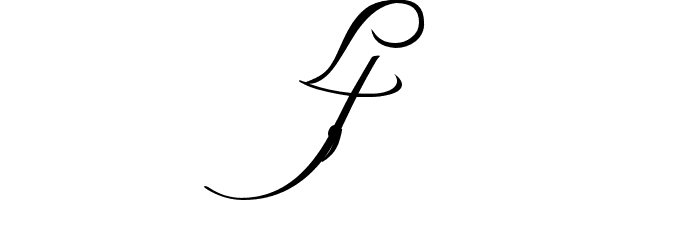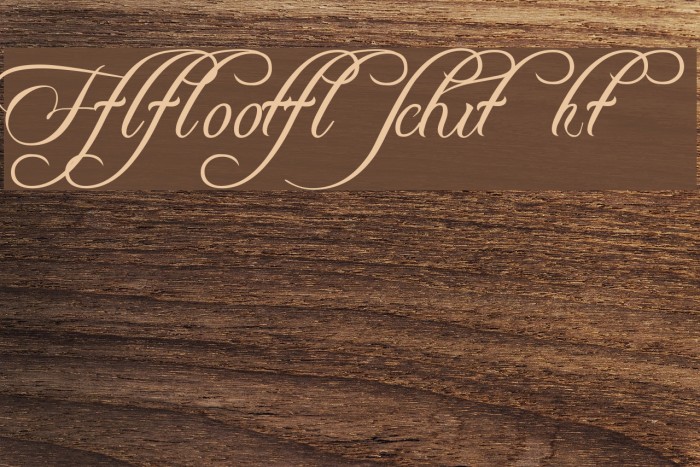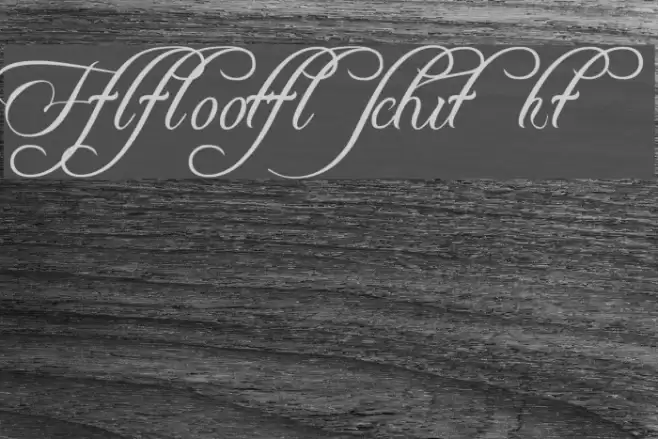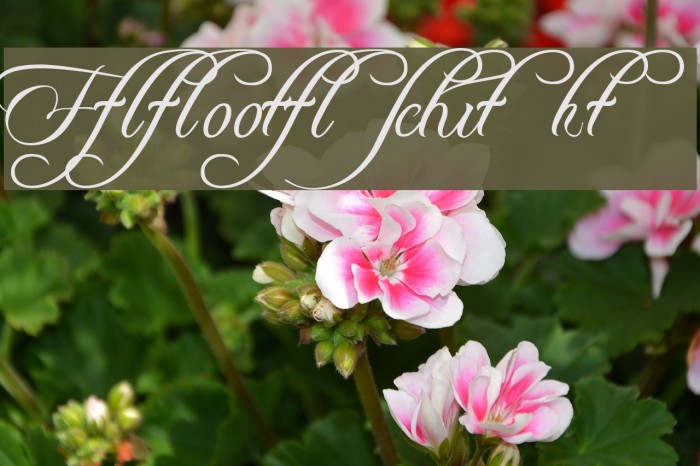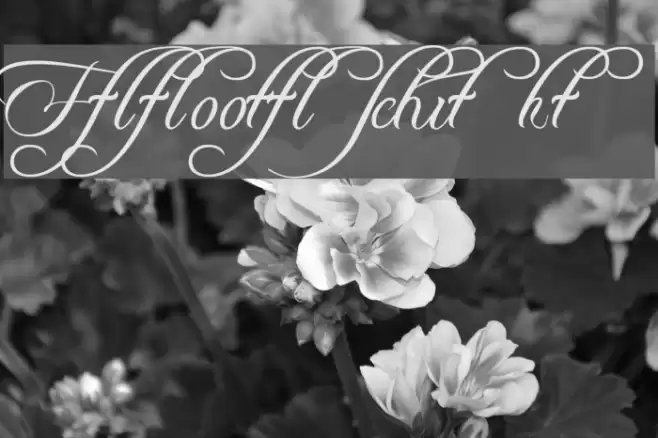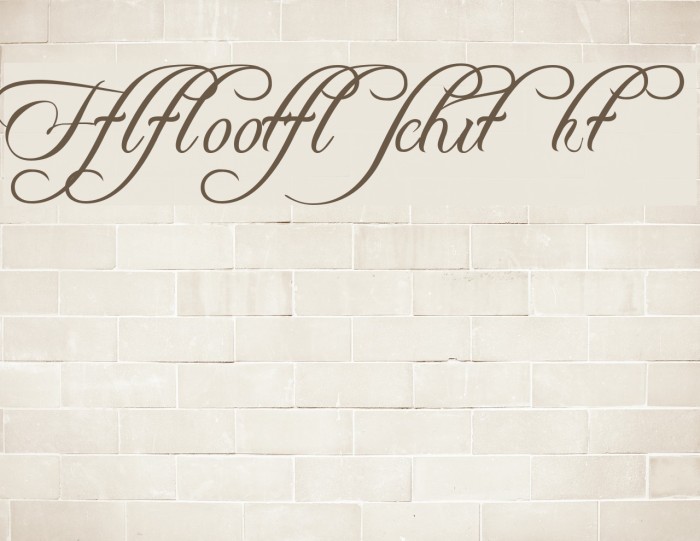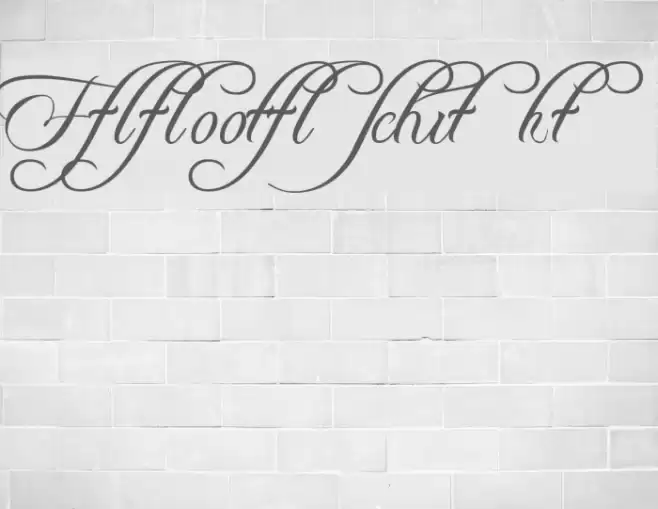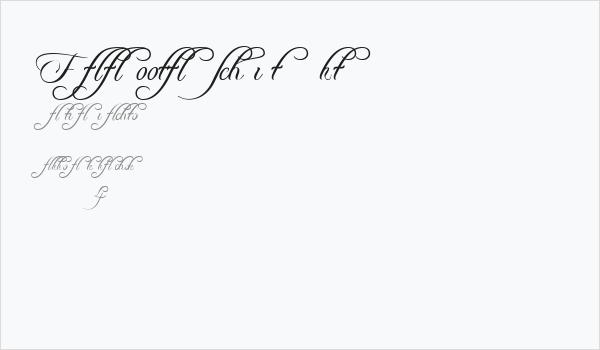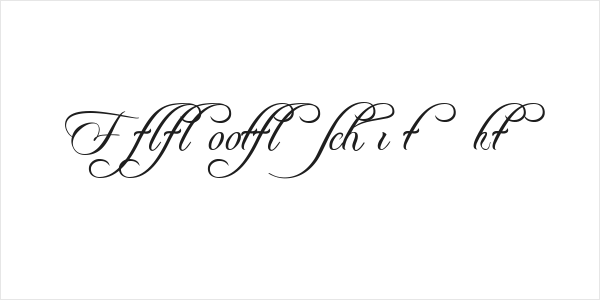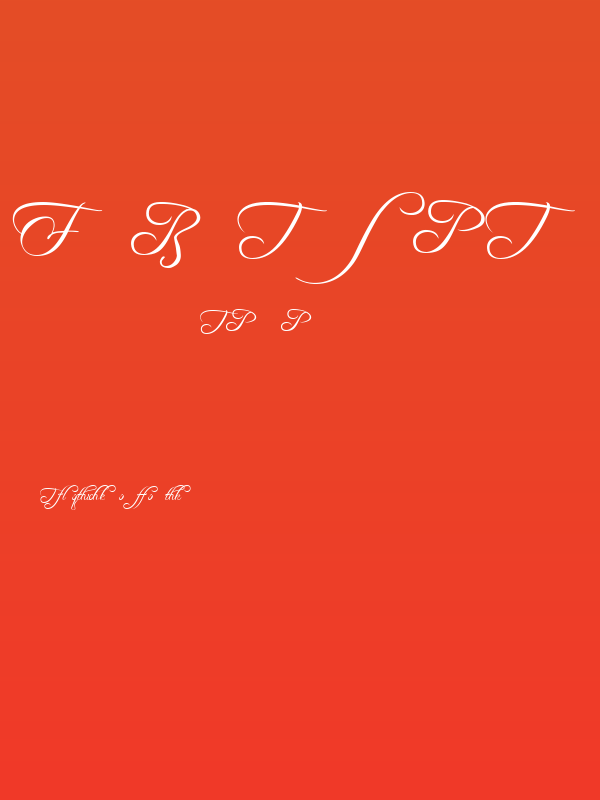
Freebooter Script - Alts Font
Freebooter Script - Alts Description
This font exhibits an elegant and flowing script style, characterized by its ornate and decorative letterforms. The characters are interconnected with elaborate swashes and flourishes, giving it a sophisticated and artistic appearance. The font's design is reminiscent of classic calligraphy, with a high degree of contrast between thick and thin strokes. This creates a dynamic and visually appealing texture, ideal for projects that require a touch of elegance and refinement. The overall style is both timeless and expressive, making it suitable for a variety of creative applications.
| Proposed Projects | Ideal for wedding invitations, greeting cards, branding, and decorative headlines. |